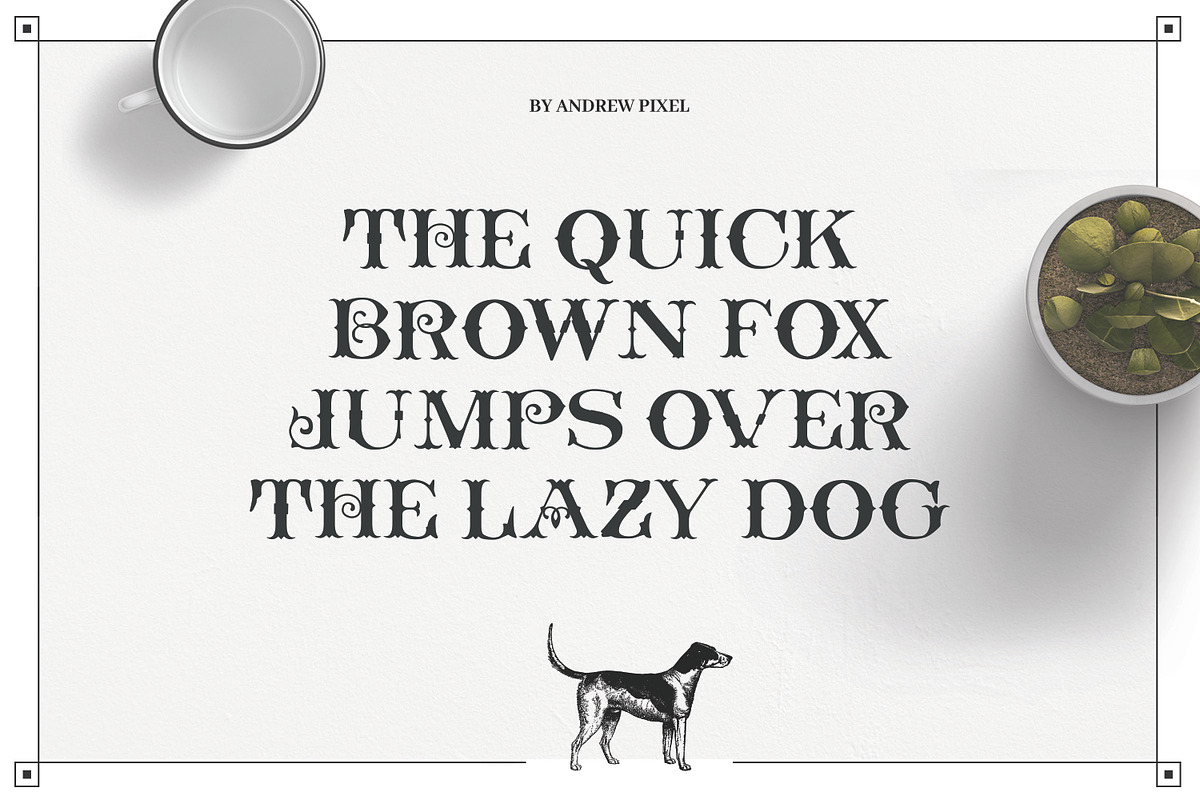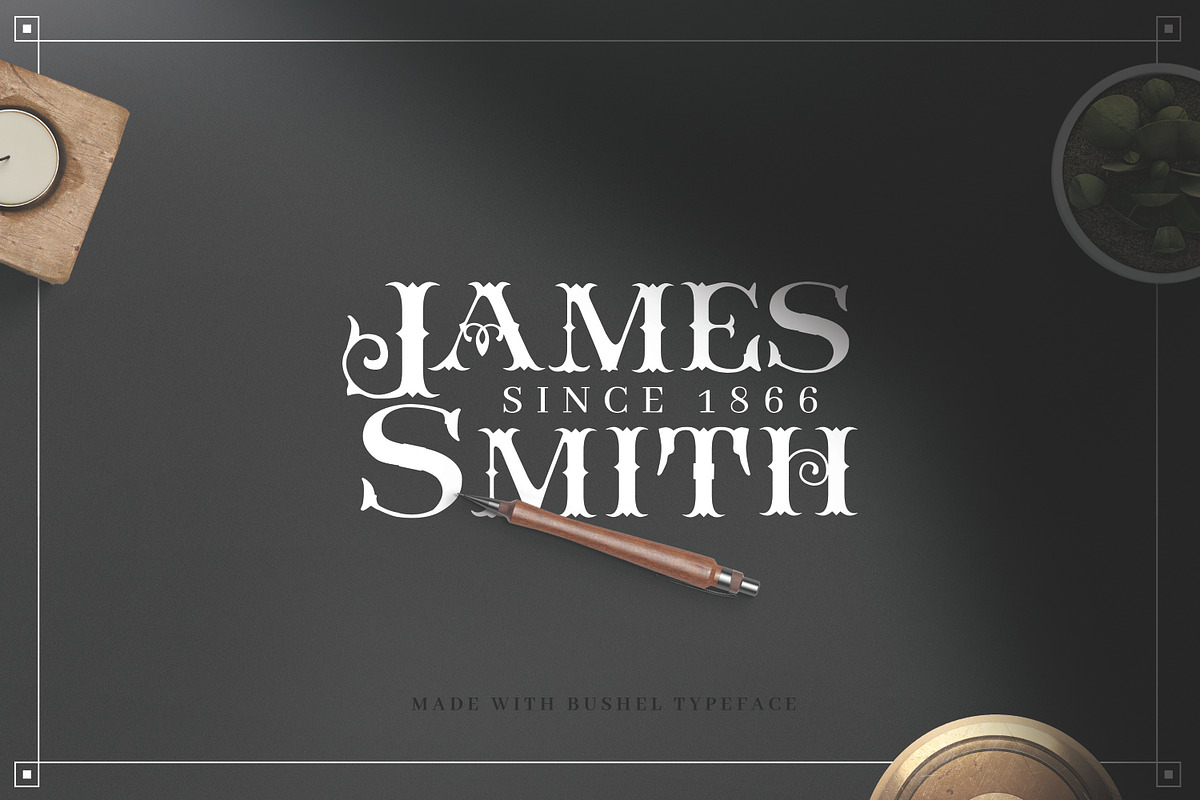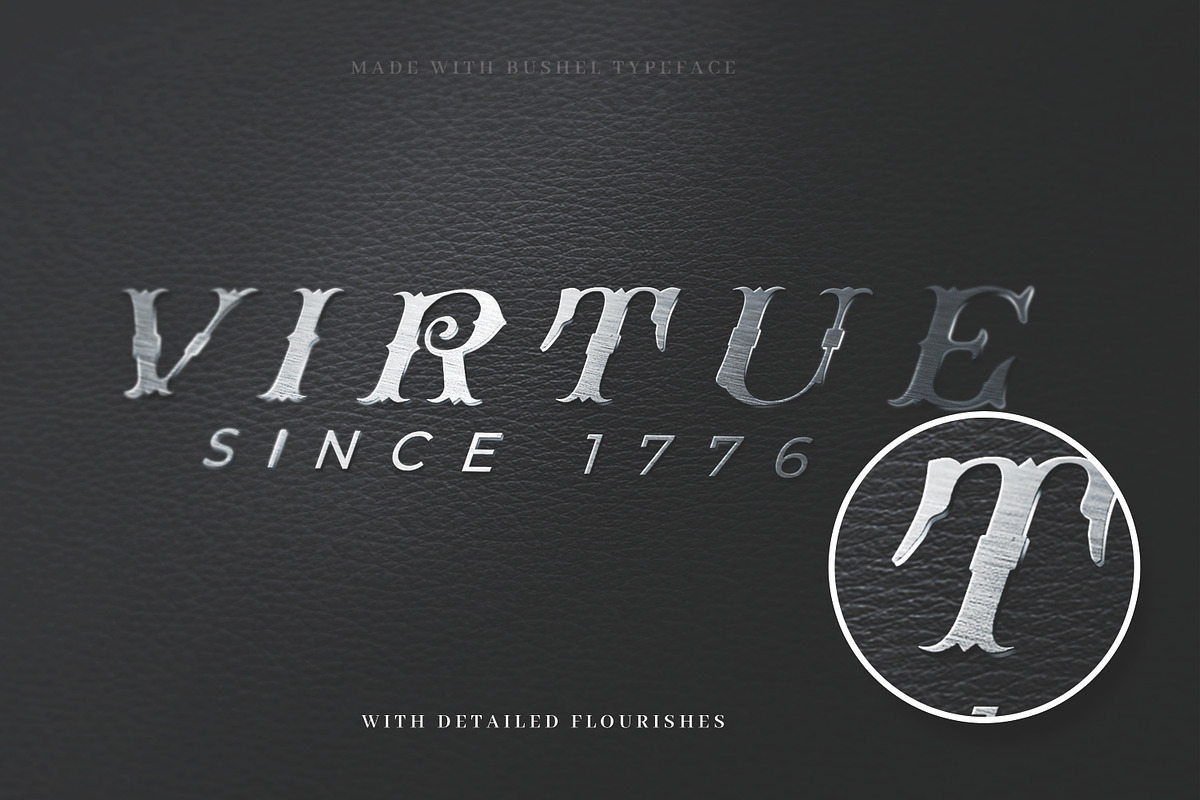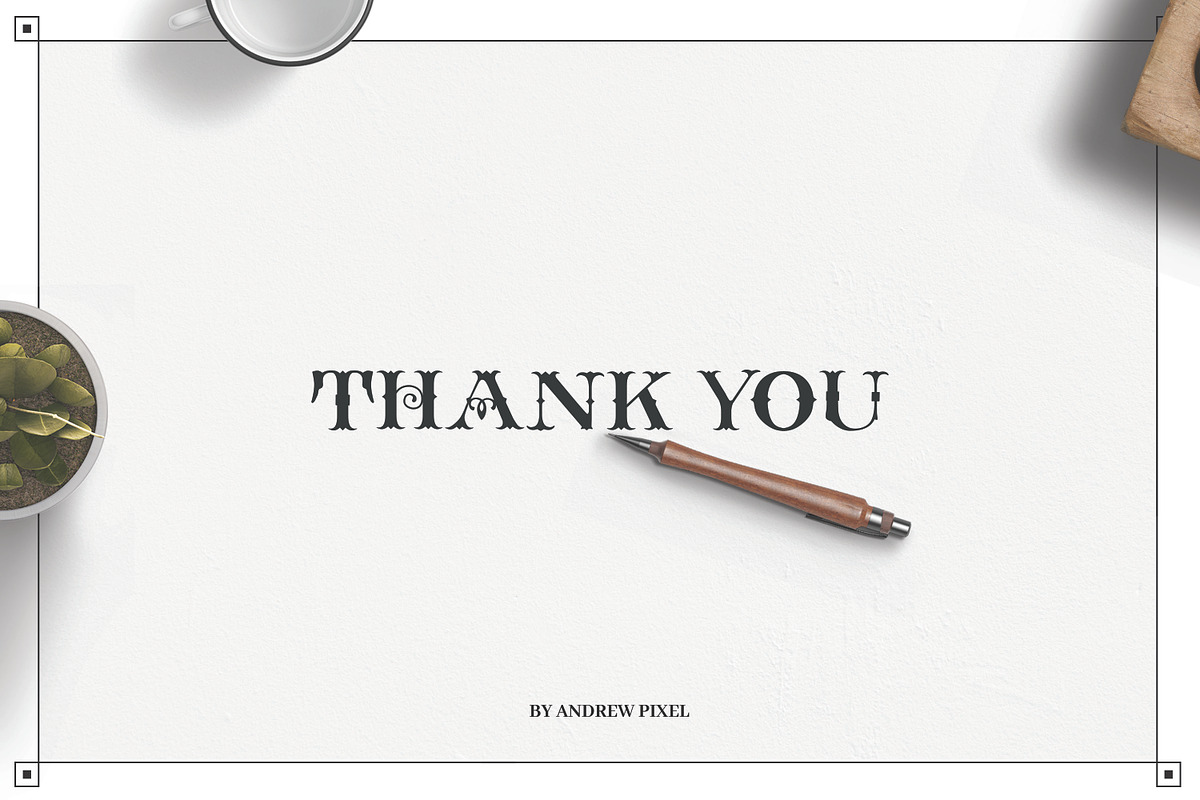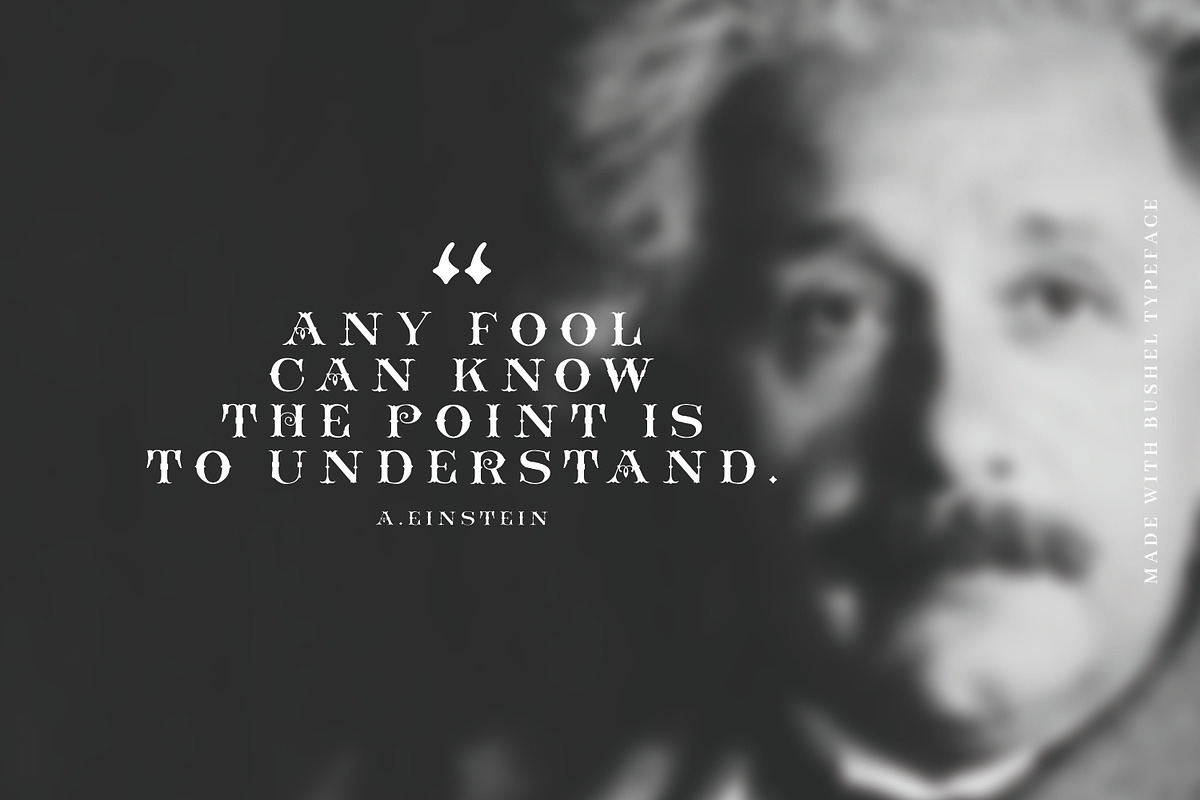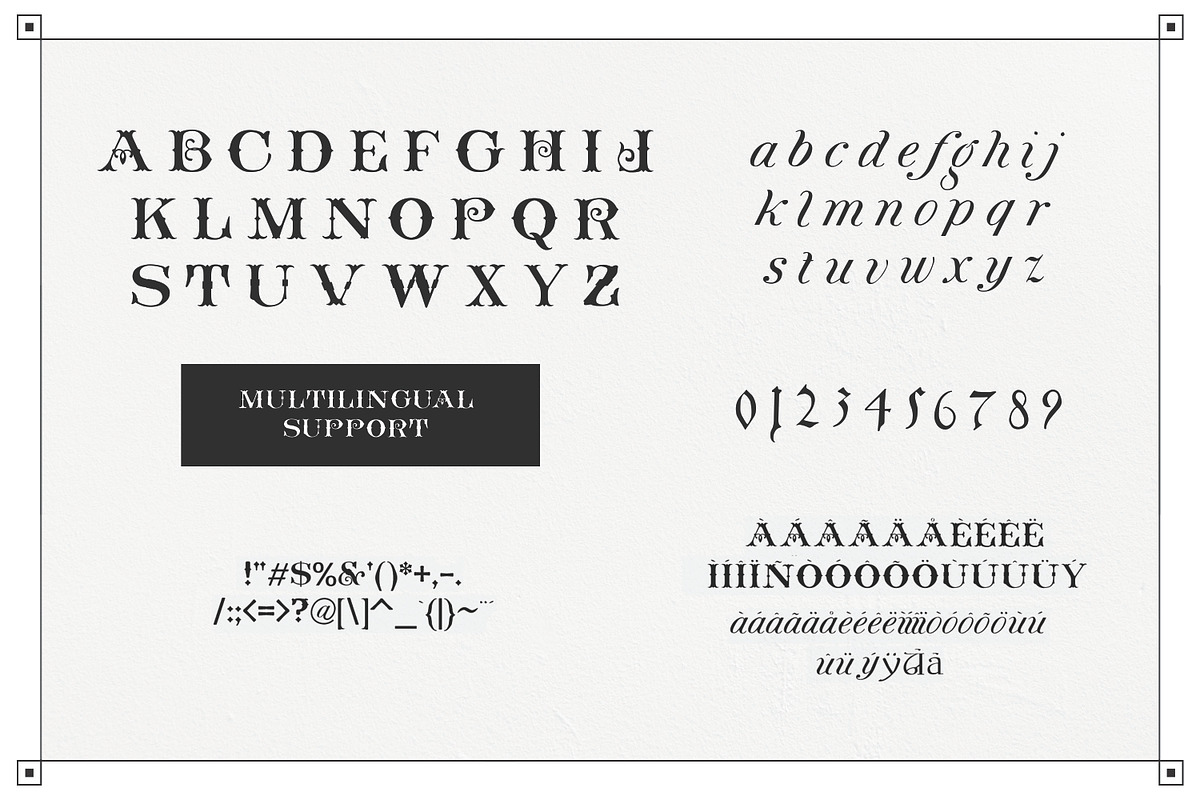
Bushel - A vintage Flourish Font
Introducing Bushel - An interesting vintage typeface with unique fluorishes that suits perfectly for titles and logos. The font has a slight victorian vibe, which makes it perfect for all kinds of vintage projects that require a some rustic elegance.